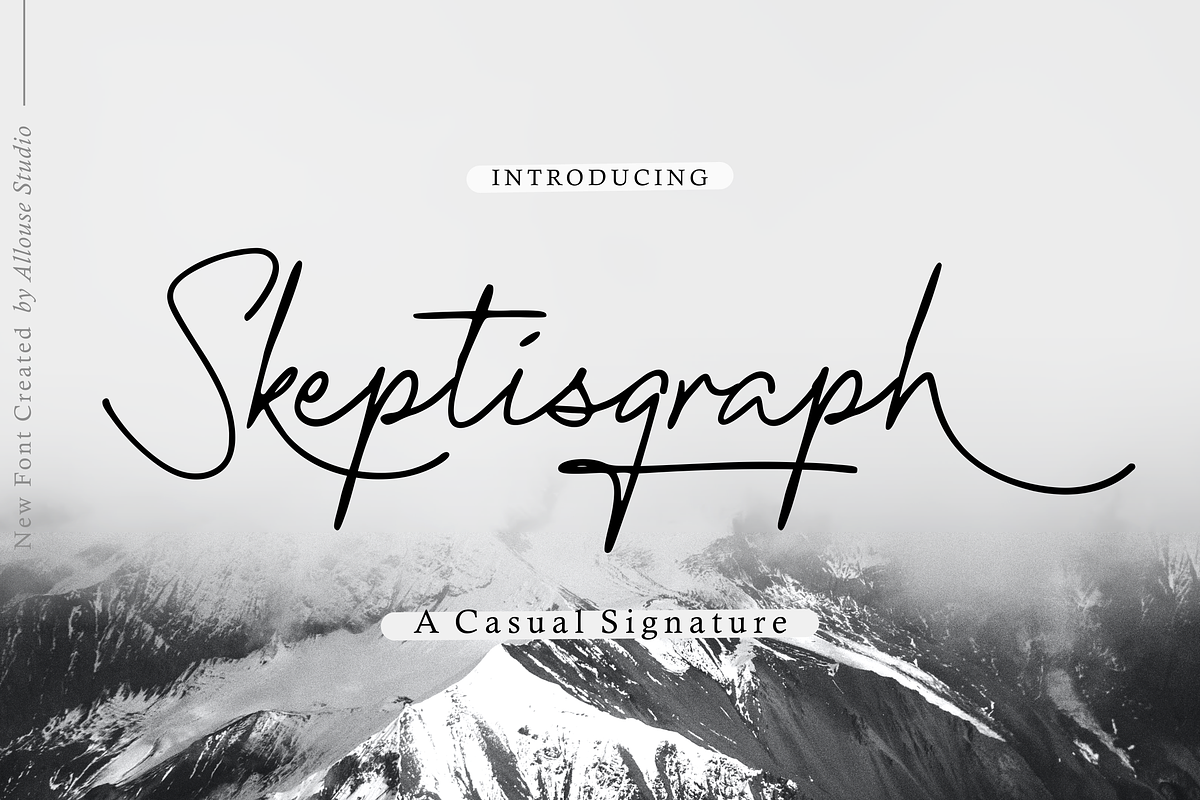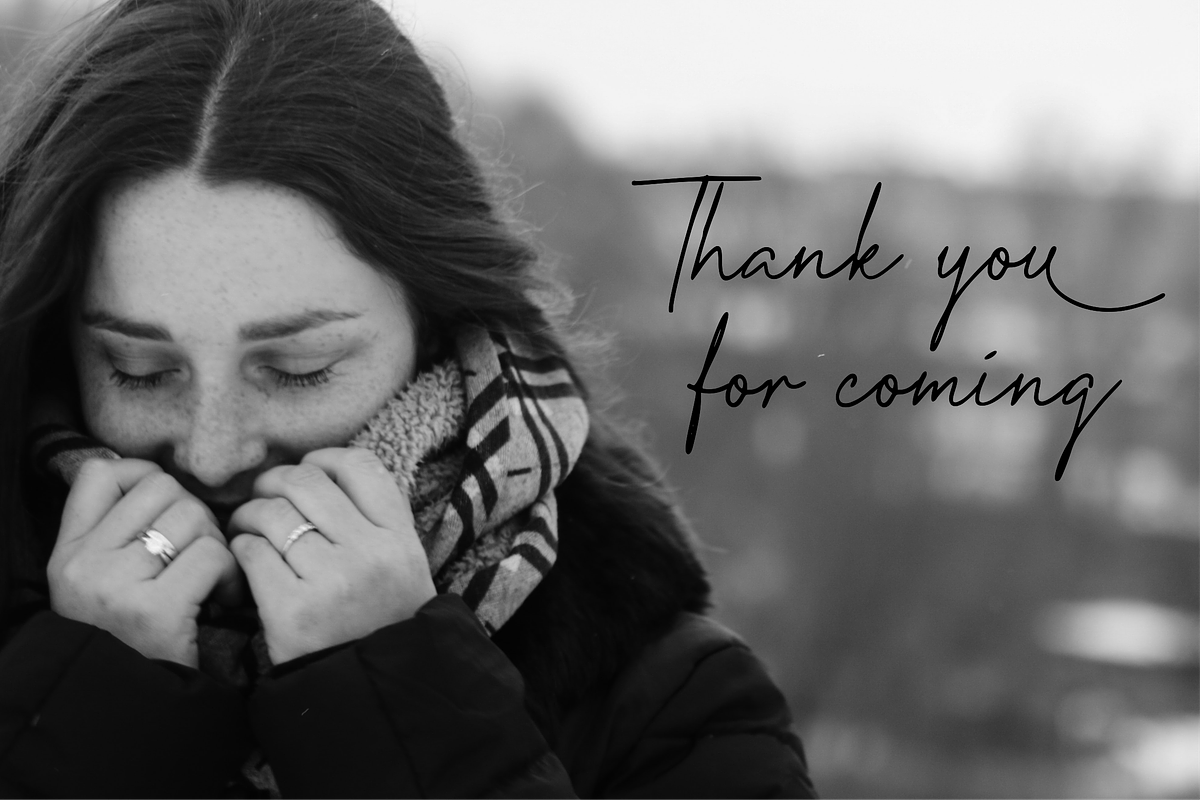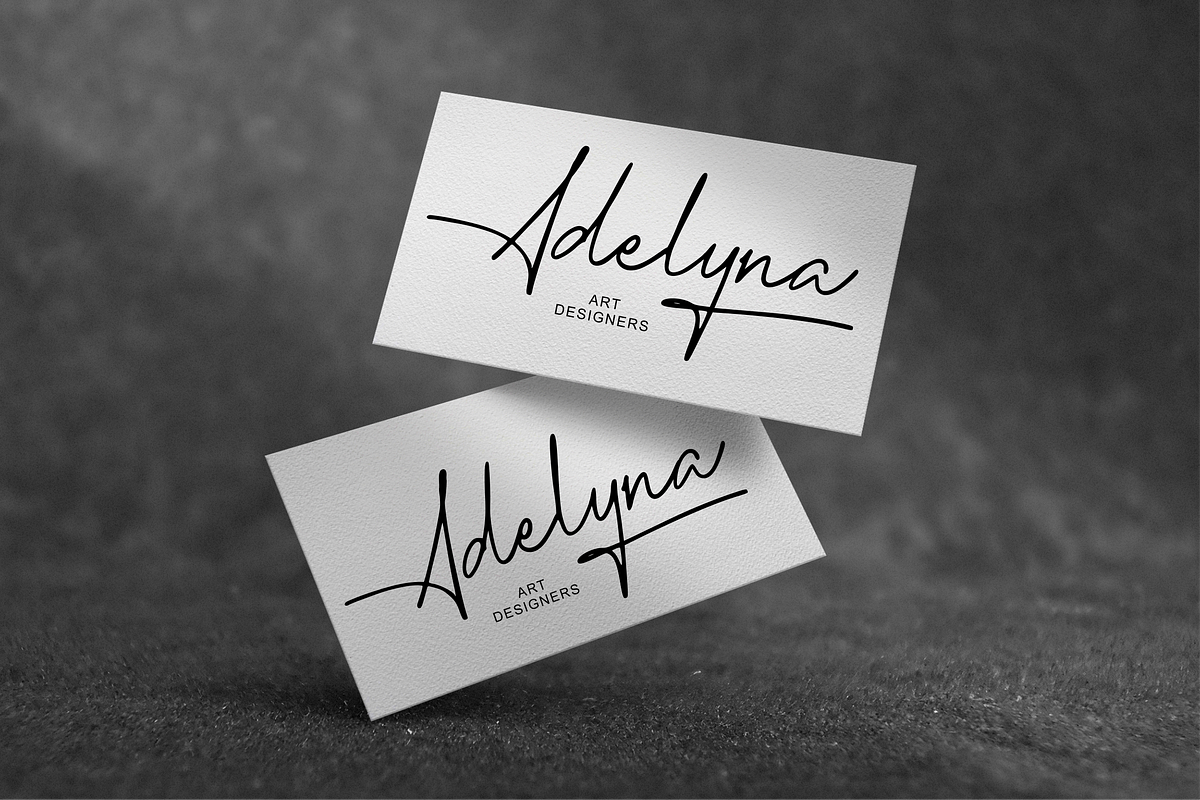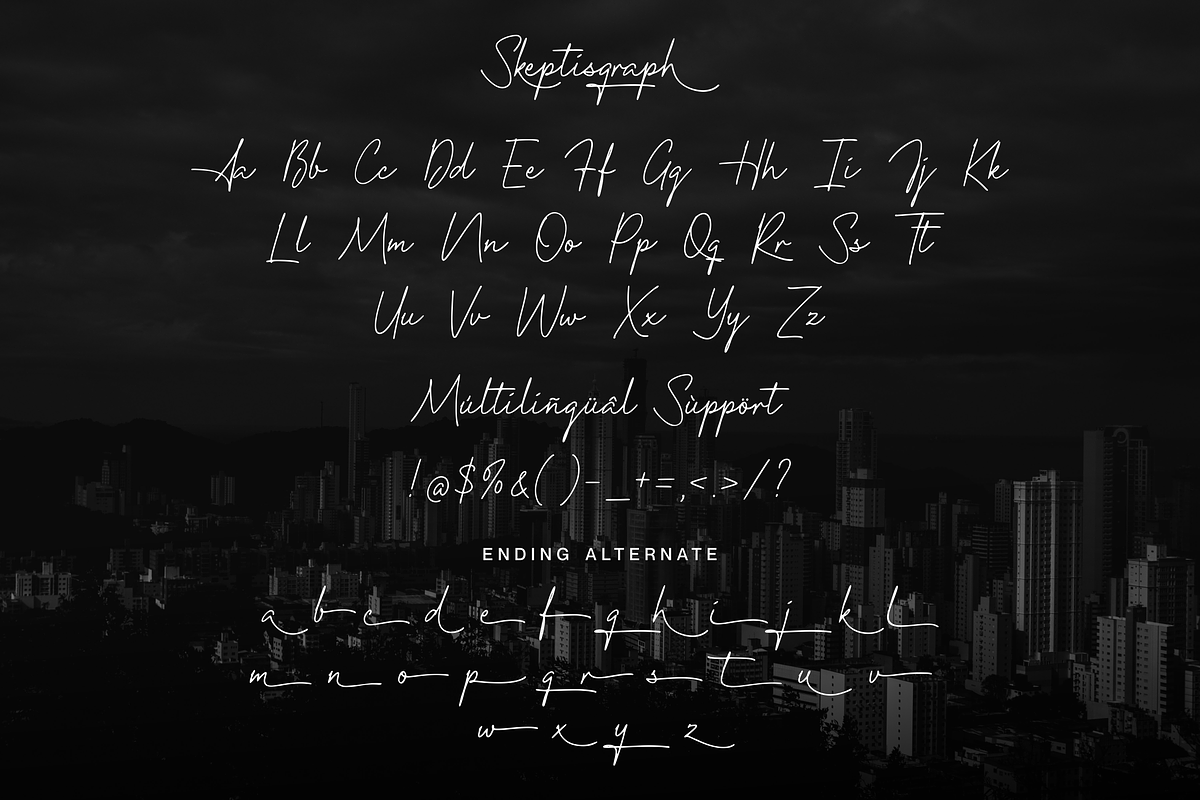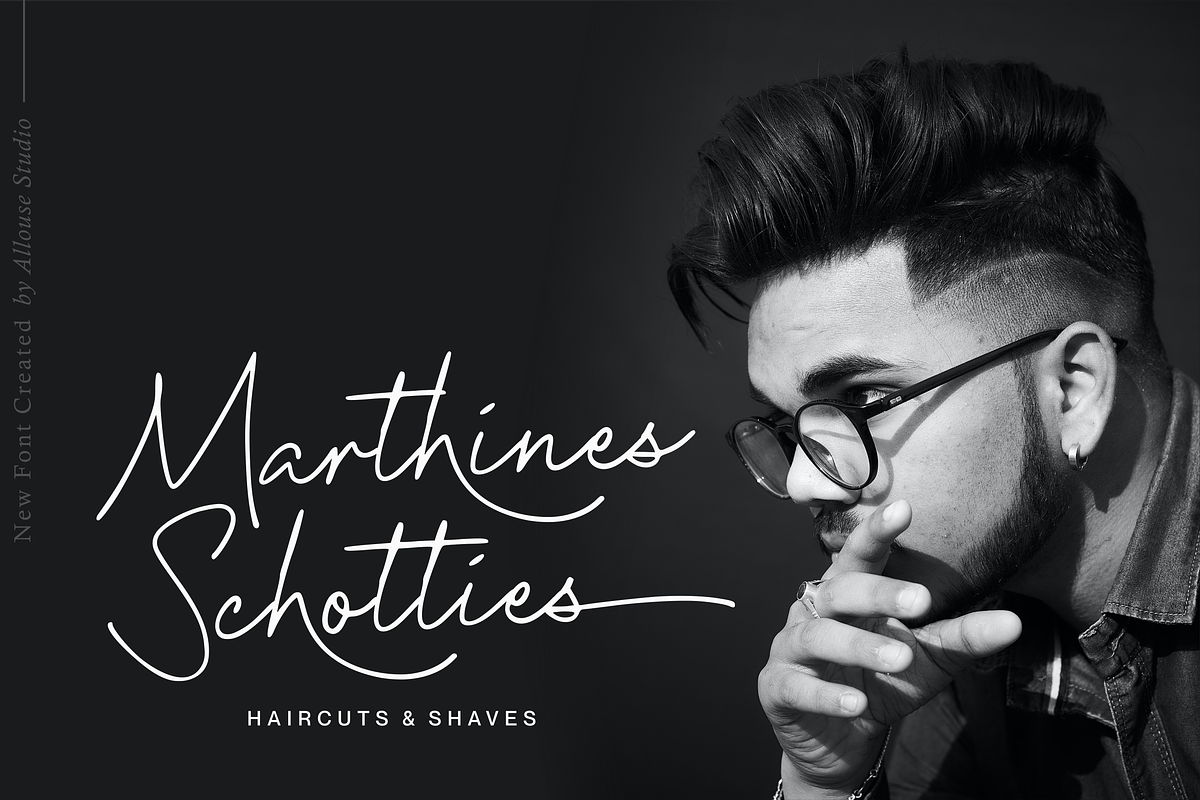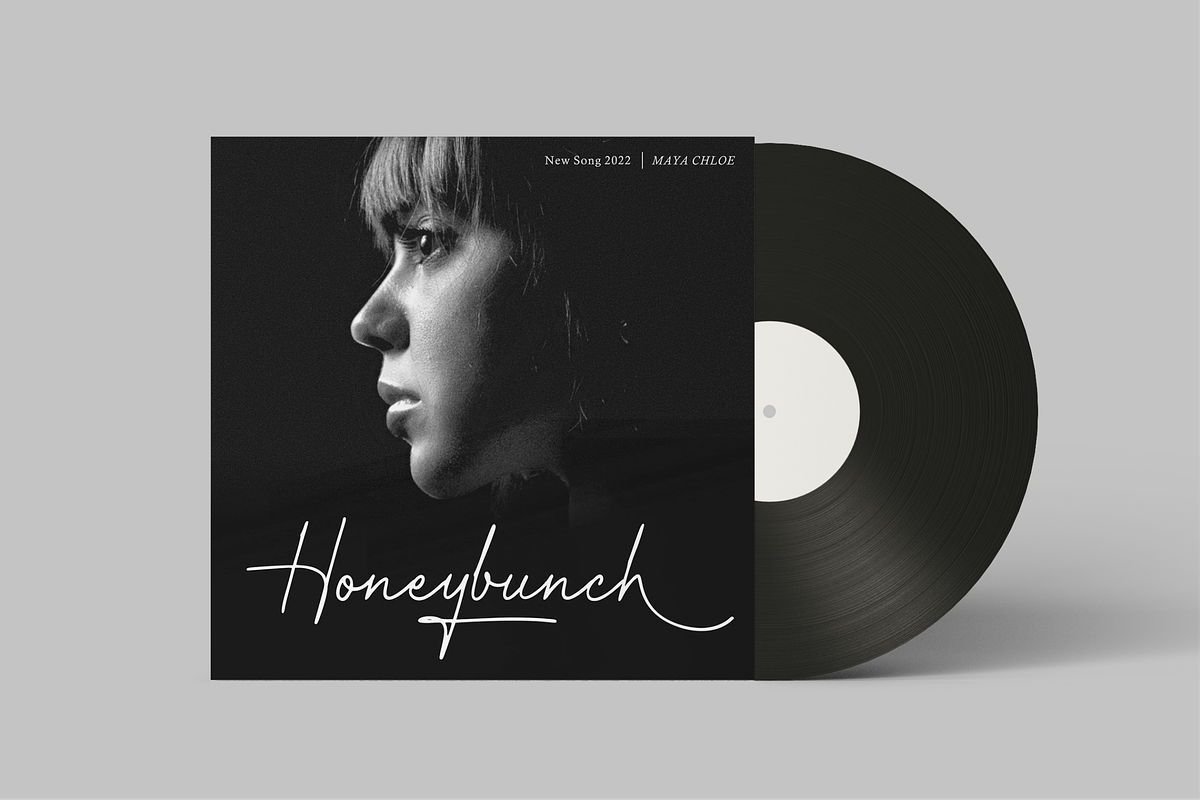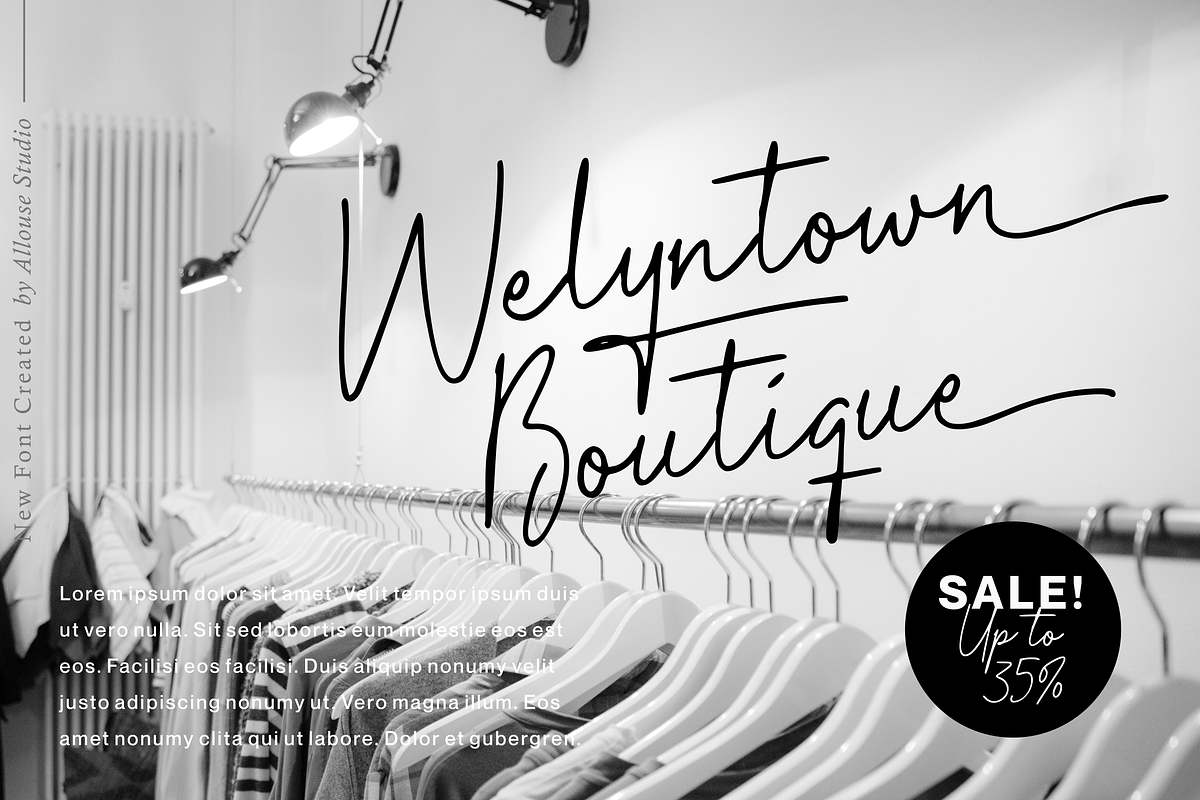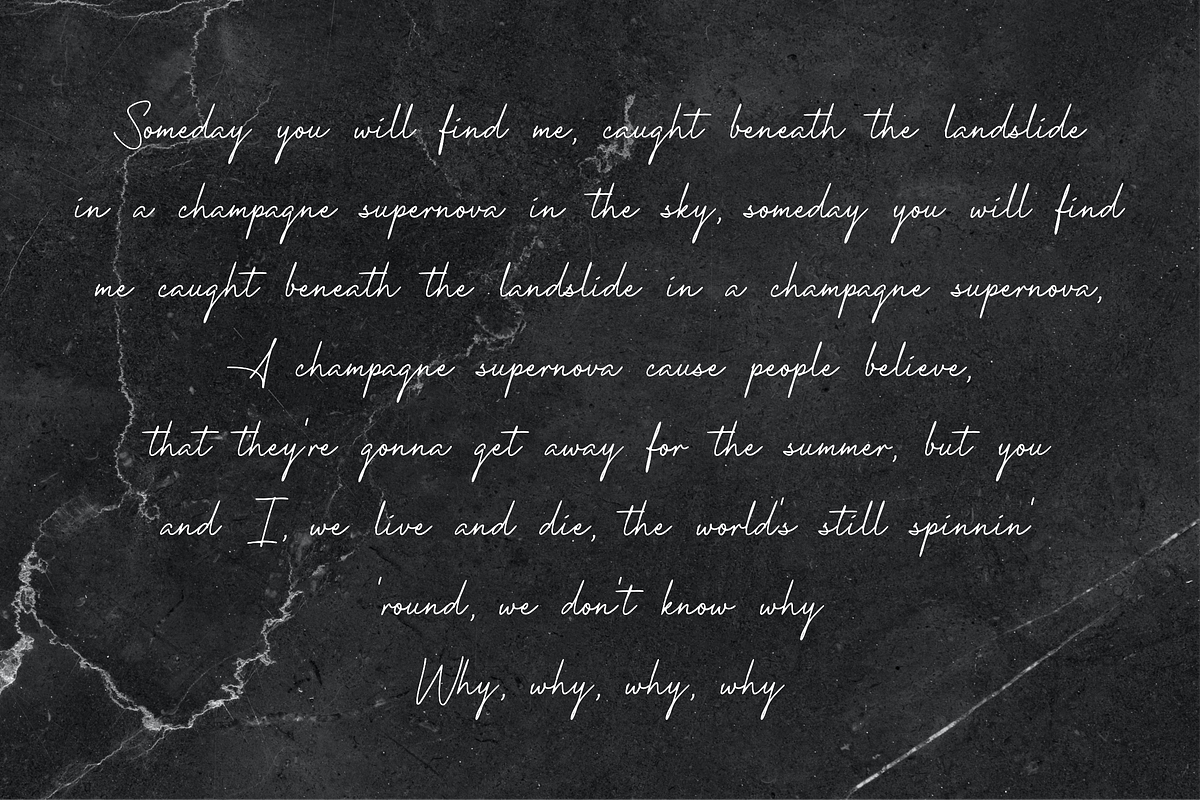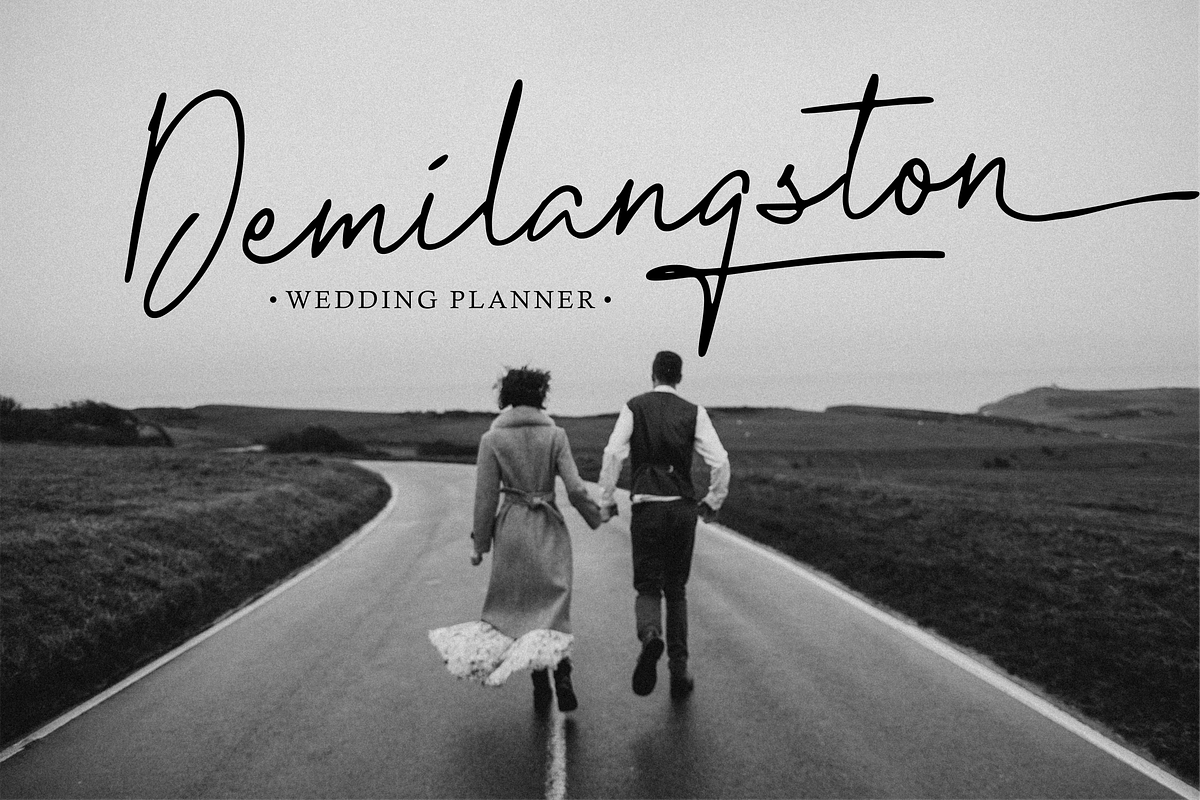
Skeptisgraph A Casual Signature Font
Proudly Present, Skeptisgraph A Casual Signature Font
Skeptisgraph is perfect for any titles, logo, product packaging, branding project, megazine, social media, wedding, or just used to express words above the background.
Skeptisgraph also come with Multi-Lingual Support.